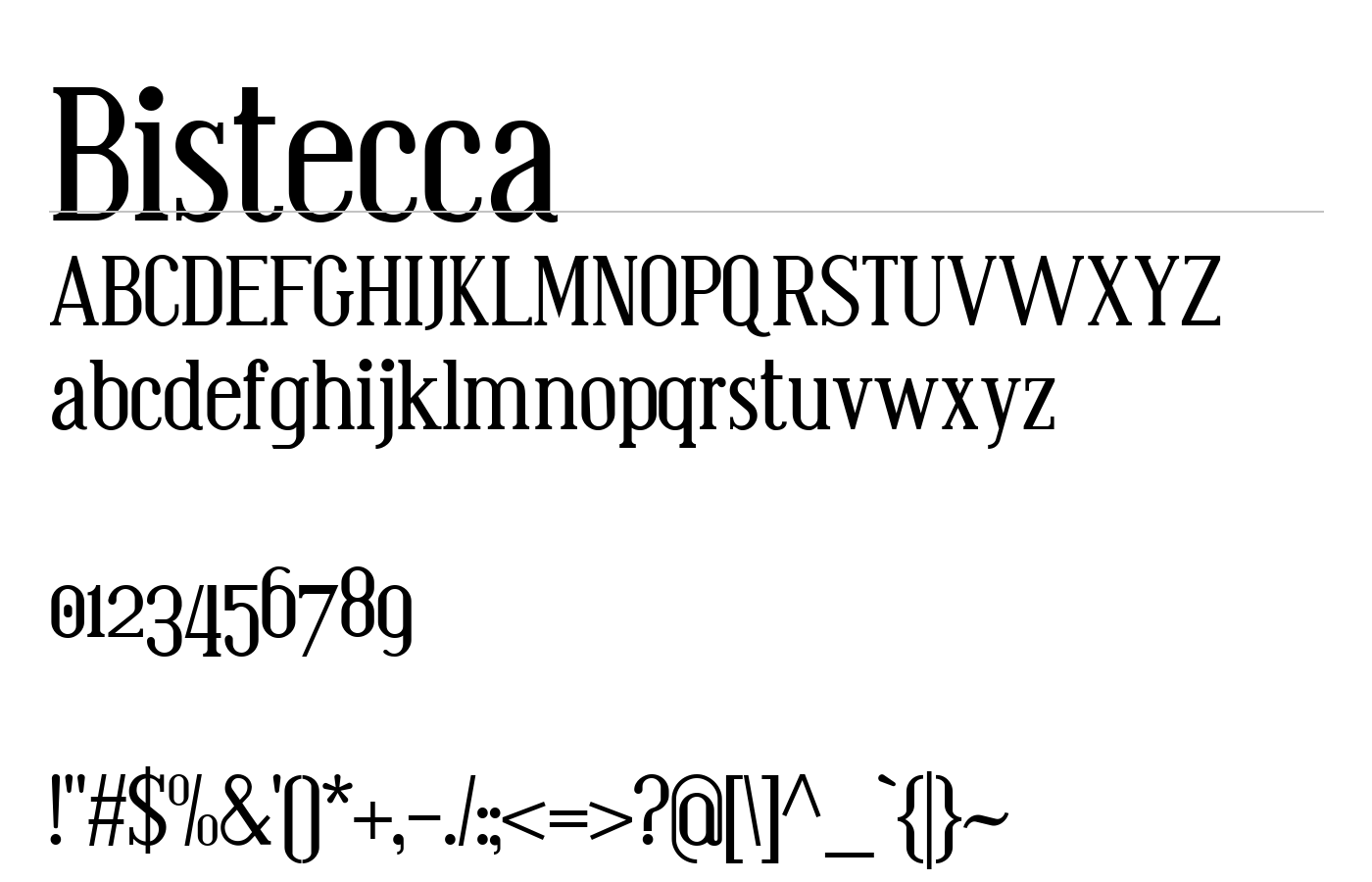
Bistecca is a condensed serif font with a tall, elegant structure and high contrast between thick and thin strokes. Its refined letterforms, featuring bracketed serifs and distinctive details like the single-story 'g' and unique 'Q' tail, give it a sophisticated yet modern personality, making it ideal for stylish editorial designs, fashion branding, and upscale logos. This font works well in headlines where its narrow width and strong presence can create a lasting impression without overwhelming the layout.
Bistecca Font
About Bistecca Font
| Designer | Francesco Canovaro |